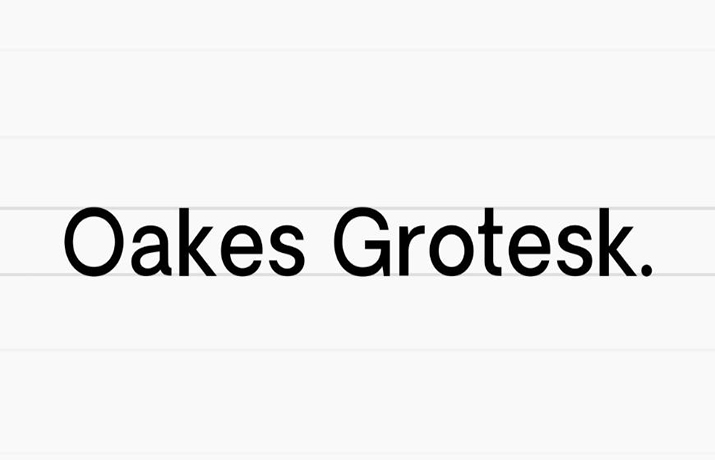
Oakes Grotesk Font is a geometric sans-serif typeface designed by Samuel Oakes in 2017. It can be used for a variety of design applications, from logos and headlines to body text.
It is a contemporary typeface that draws inspiration from the classic geometric sans-serif fonts of the 20th century, such as Futura and Avant Garde, but with a unique twist.
One of the defining characteristics of Oakes Grotesk is its use of subtle curves and angles, which give the font a distinctive, modern look. The font’s geometric forms are balanced by its curved terminals, making it both precise and approachable.
The Oakes Grotesk Font Family has come in 10 styles including Regular, Light, and Medium. Each style contains 869 glyphs and 10920 binary stored kerning pairs.
Oakes Grotesk is a stylish and versatile font that offers a fresh take on the classic geometric sans-serif style.
You can use this typeface in paragraphs, novels, book covers, newspapers, printing functions, logos, posters, banners, magazines, book covers, social media posters, flyers, headers, titles, banners, signs, labels, cards, documents, T-shirt designs, presentations, and assignments,
The font is optimized for screen use and is highly legible, making it ideal for use in web design and digital media. Its clean lines and well-balanced proportions make it an excellent choice for modern, minimalist design aesthetics.
Oakes Grotesk Font supports 89 languages.